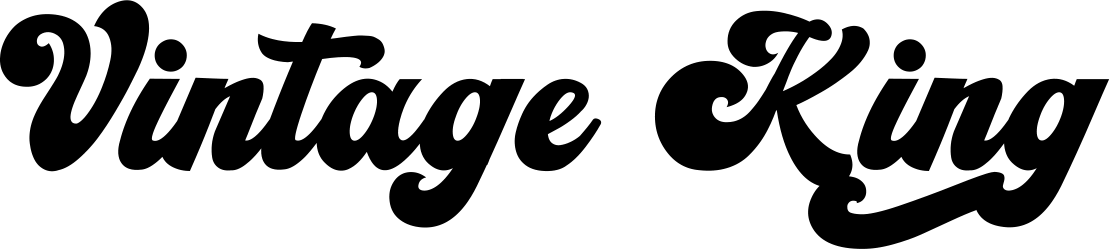
Vintage King Font
Vintage King font is one of the retro vintage designs that many graphics working in the field of nostalgia and the ’70s era are familiar with the performance of this font. For example, you can create retro flyers, logo packaging, and many old-fashioned themes.
This groovy font does not support numbers, and instead, you can use an excellent theme for the music cover with other characters to make progress in your ’70s projects.